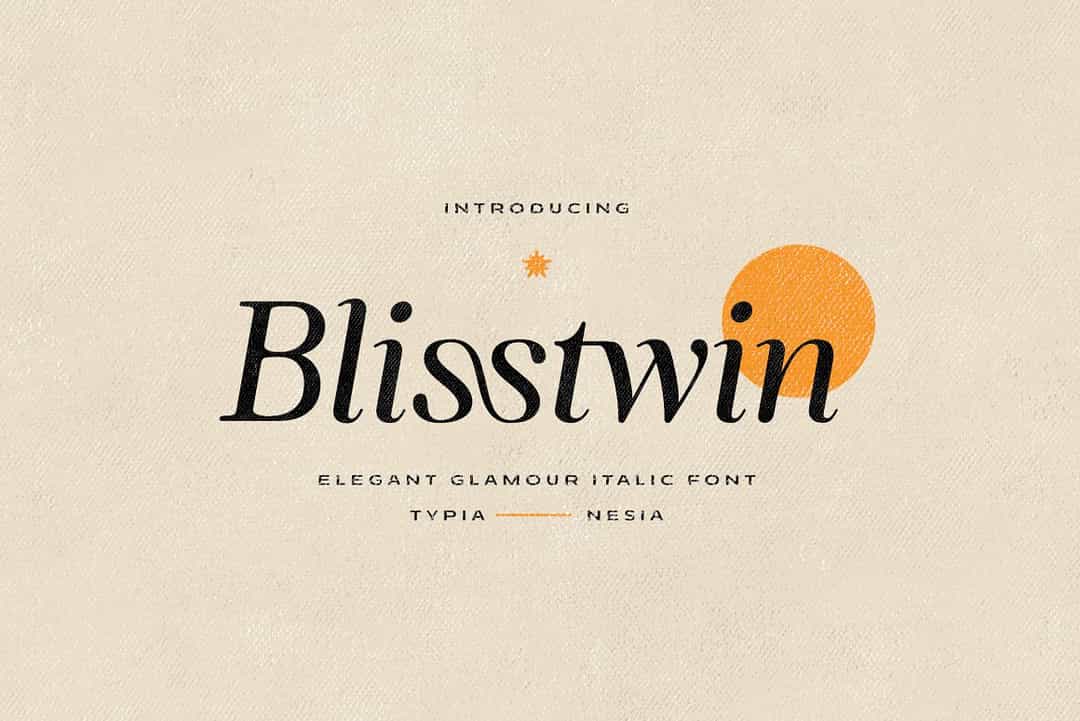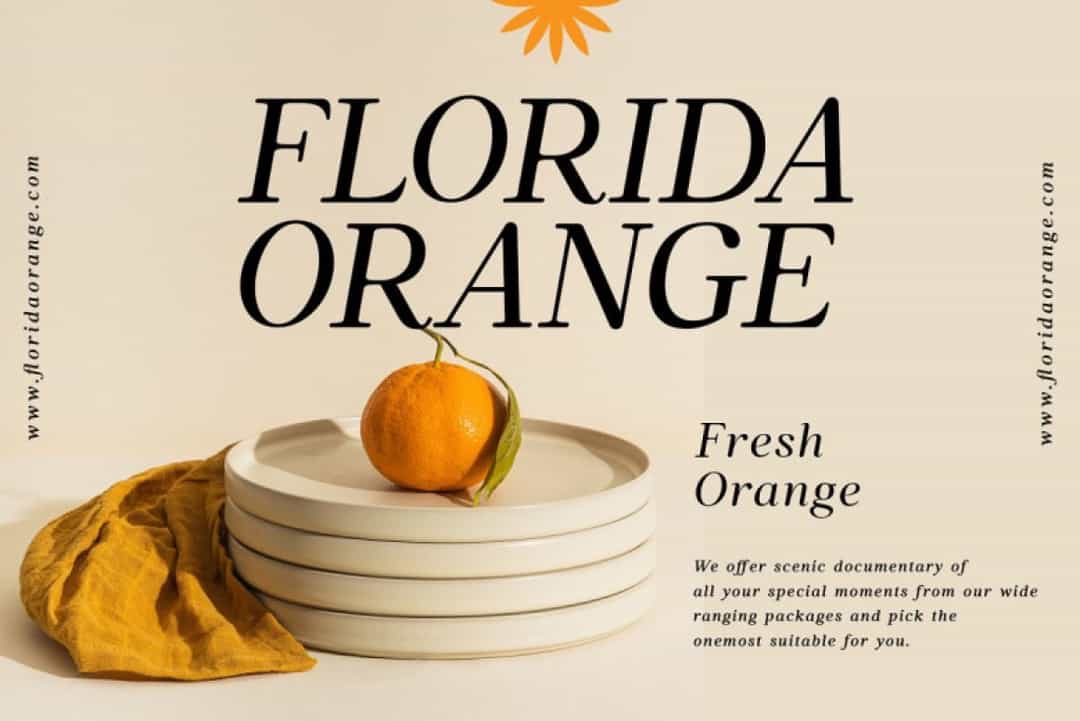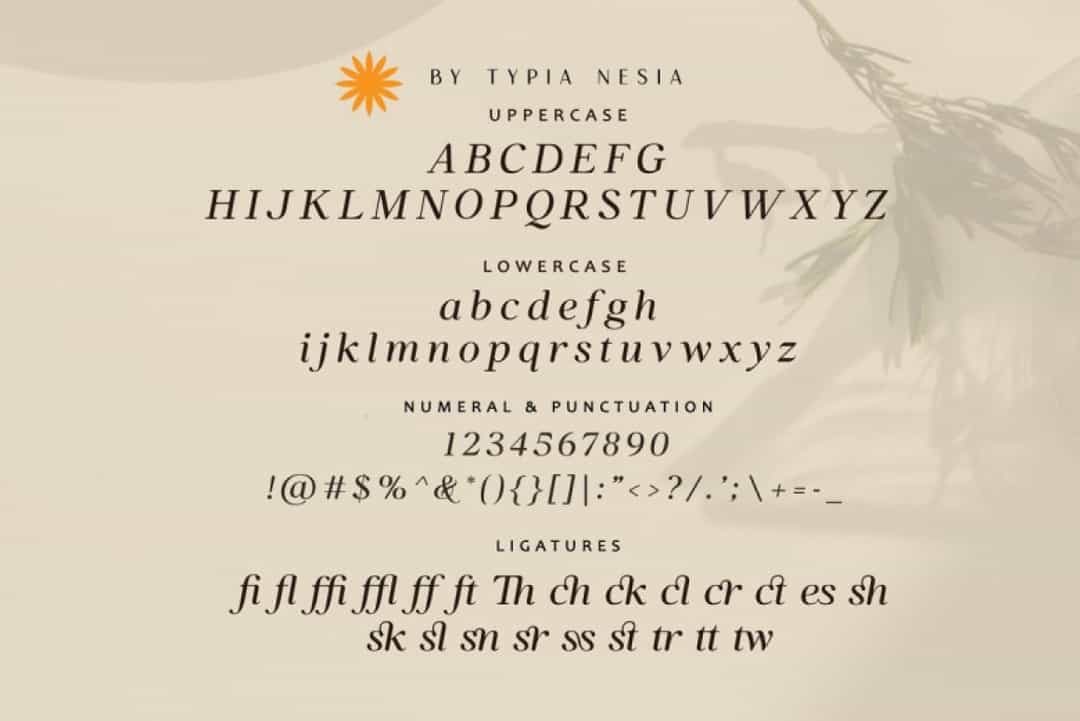
Blisstwin is an elegant and feminine italic serif font designed with modern elegance in mind, boasting both glamour and fashionable features. Additionally, this font comes equipped with ligatures so that it can create amazing typographic styles!